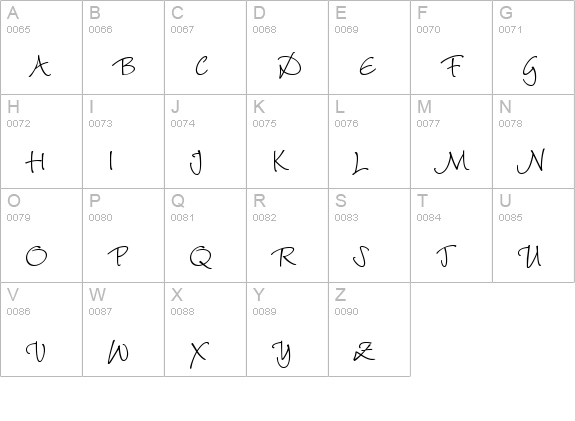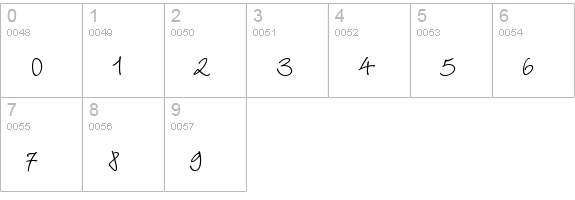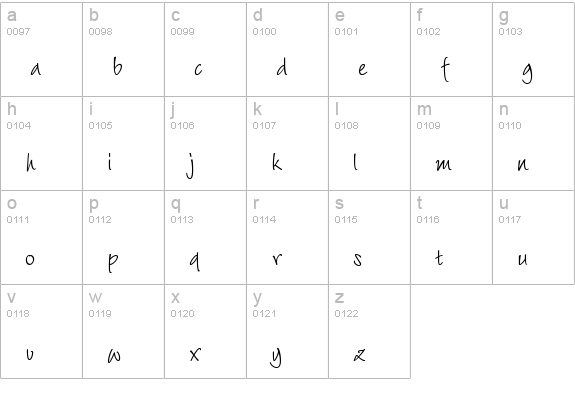
WiesbadenSwing Roman Font Details
Introducing WiesbadenSwing Roman font, a captivating and versatile typeface that exudes elegance and sophistication. With its sleek curves and timeless design, WiesbadenSwing Roman is the perfect choice for adding a touch of class to your projects. This font effortlessly combines modernity with a hint of vintage charm, making it suitable for a wide range of applications. Whether you're designing a logo, creating stunning headlines, or crafting an eye-catching poster, WiesbadenSwing Roman will surely make a lasting impression. One of the most remarkable features of WiesbadenSwing Roman is its ability to convey a sense of freedom and creativity. Each letter is meticulously crafted to flow seamlessly, creating a harmonious rhythm that captivates the reader's attention. The font's versatility allows it to adapt effortlessly to both formal and informal designs, making it an ideal choice for any project. But what sets WiesbadenSwing Roman apart is that it is freely available to download at FontsMarket.com. Say goodbye to the limitations of expensive fonts and embrace the freedom of creativity that WiesbadenSwing Roman offers. Whether you're a professional designer or a passionate hobbyist, this font will become your go-to choice for all your typographic needs. So why wait? Experience the beauty and versatility of WiesbadenSwing Roman today. Download it for free at FontsMarket.com and unlock a world of possibilities for your design projects. With WiesbadenSwing Roman, your creativity knows no bounds.